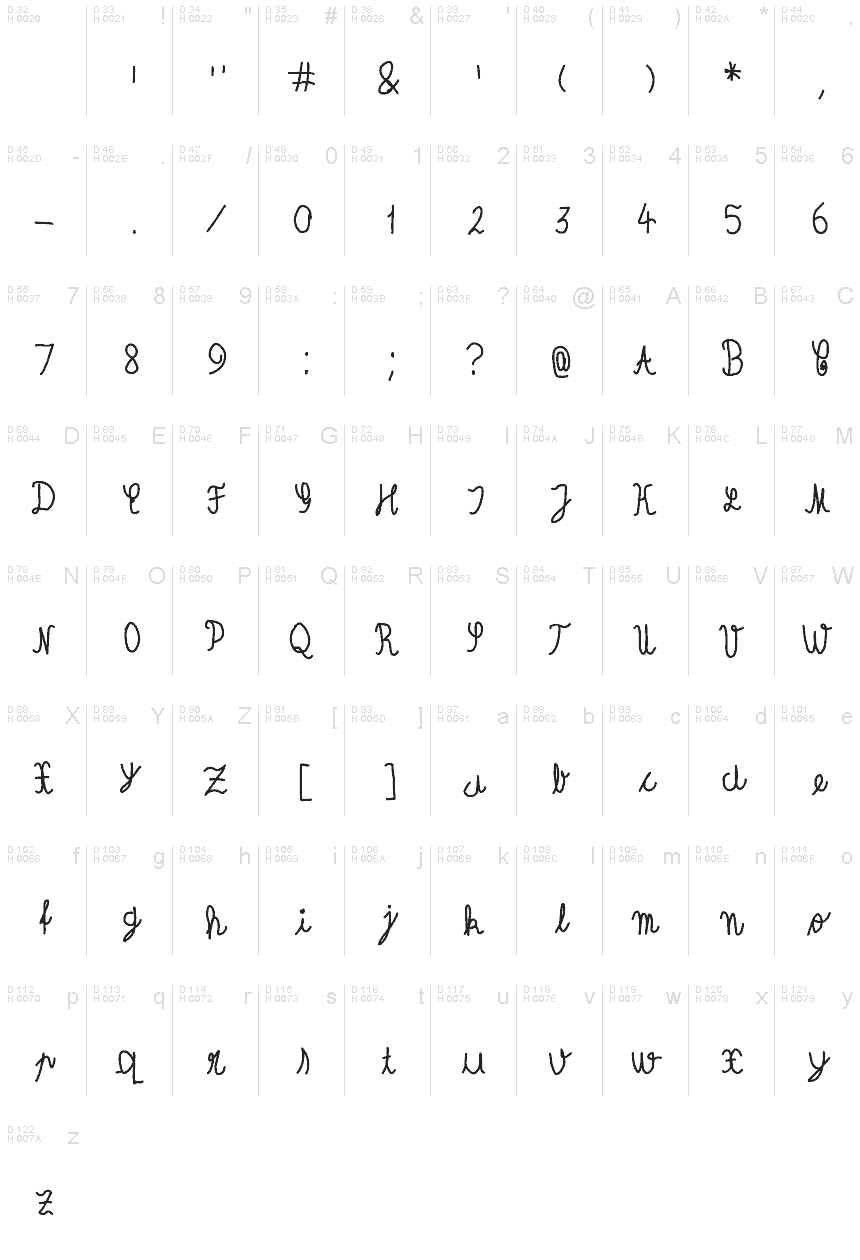
stella font
Stella font by Andrea Balzano is a handwritten font with a casual elegance and artistic flair. The light weight of this classic script adds expressive curves to its lettering and gives the font subtlety and grace. A handwritten feel enhances its natural modern style which is timeless in execution.